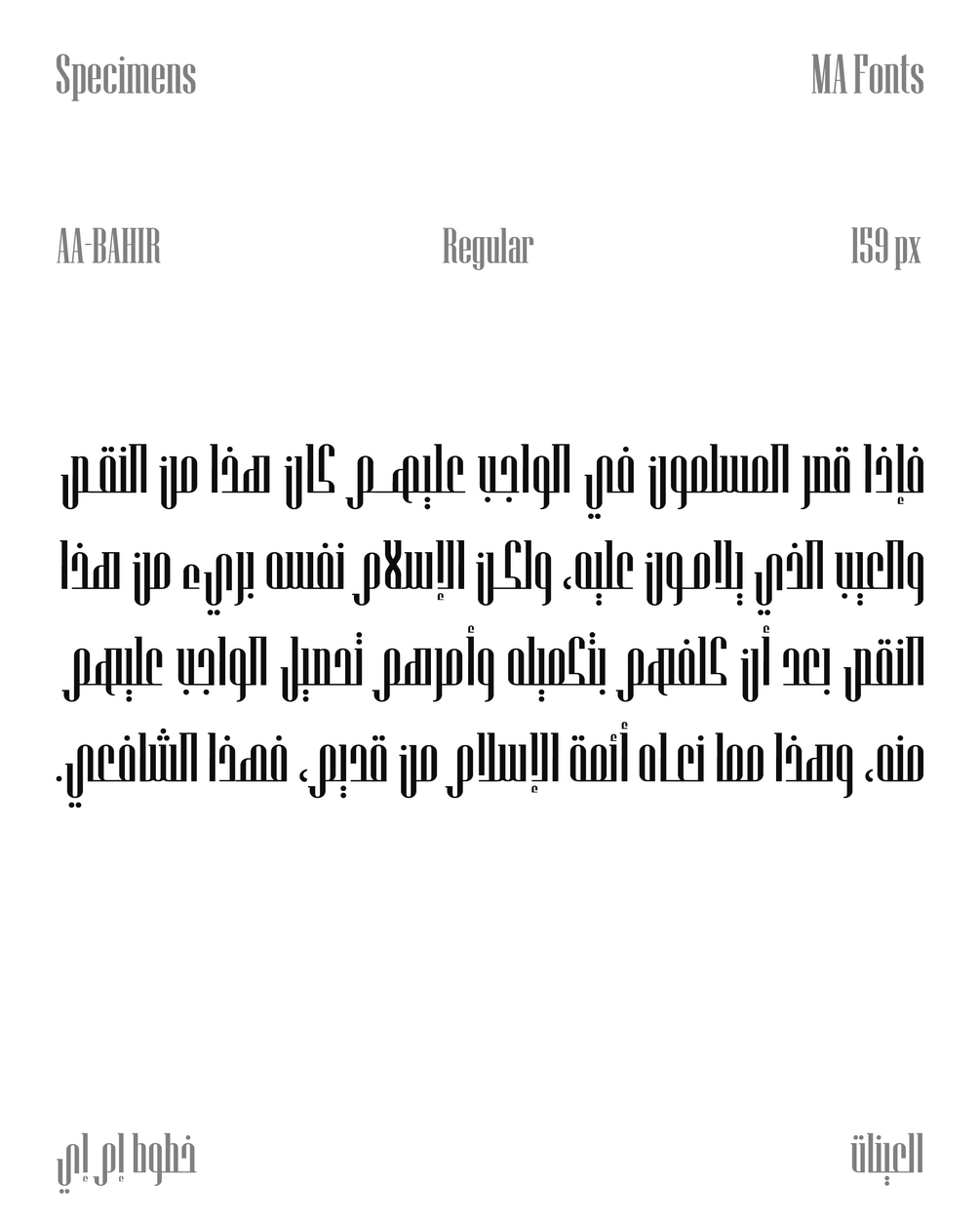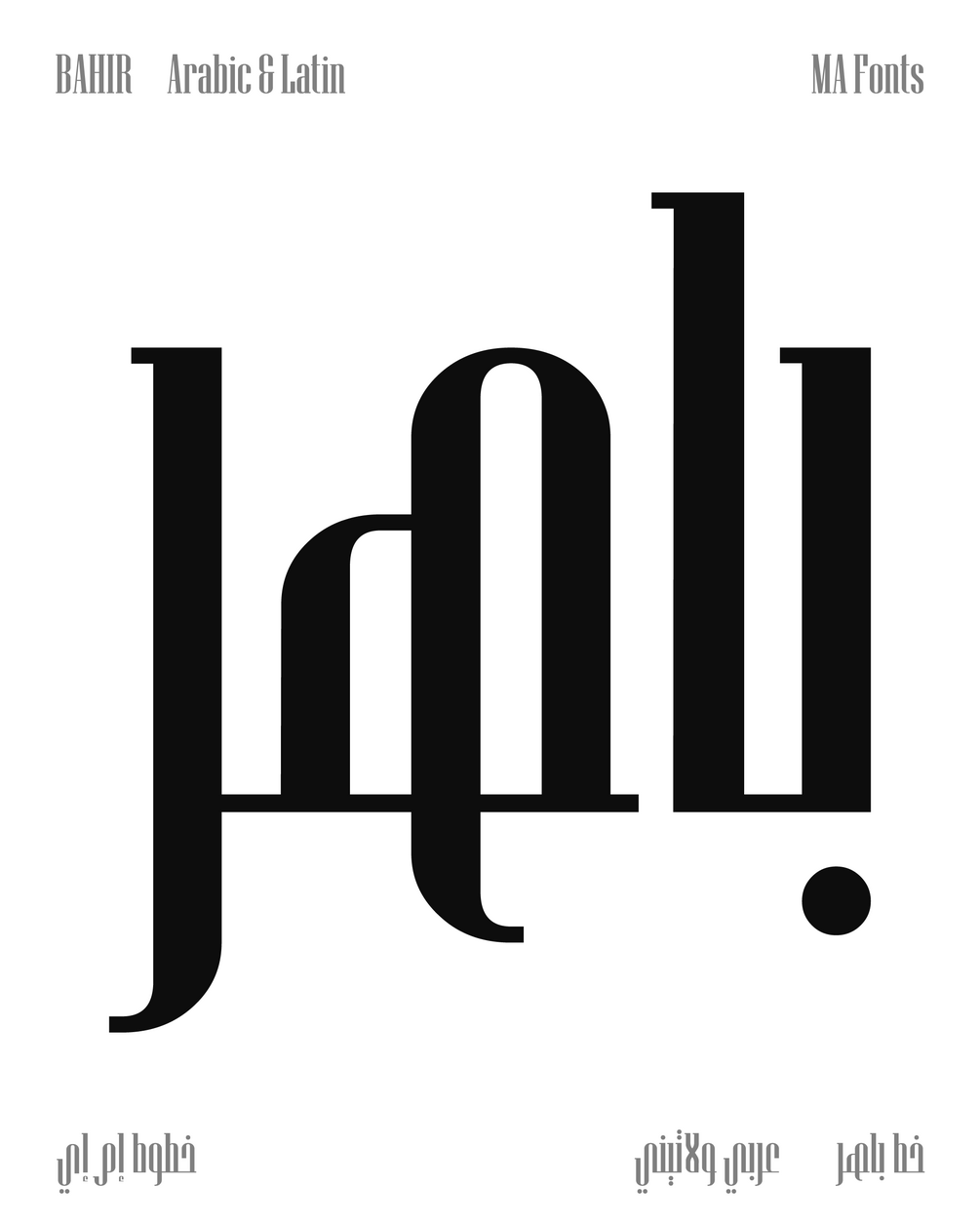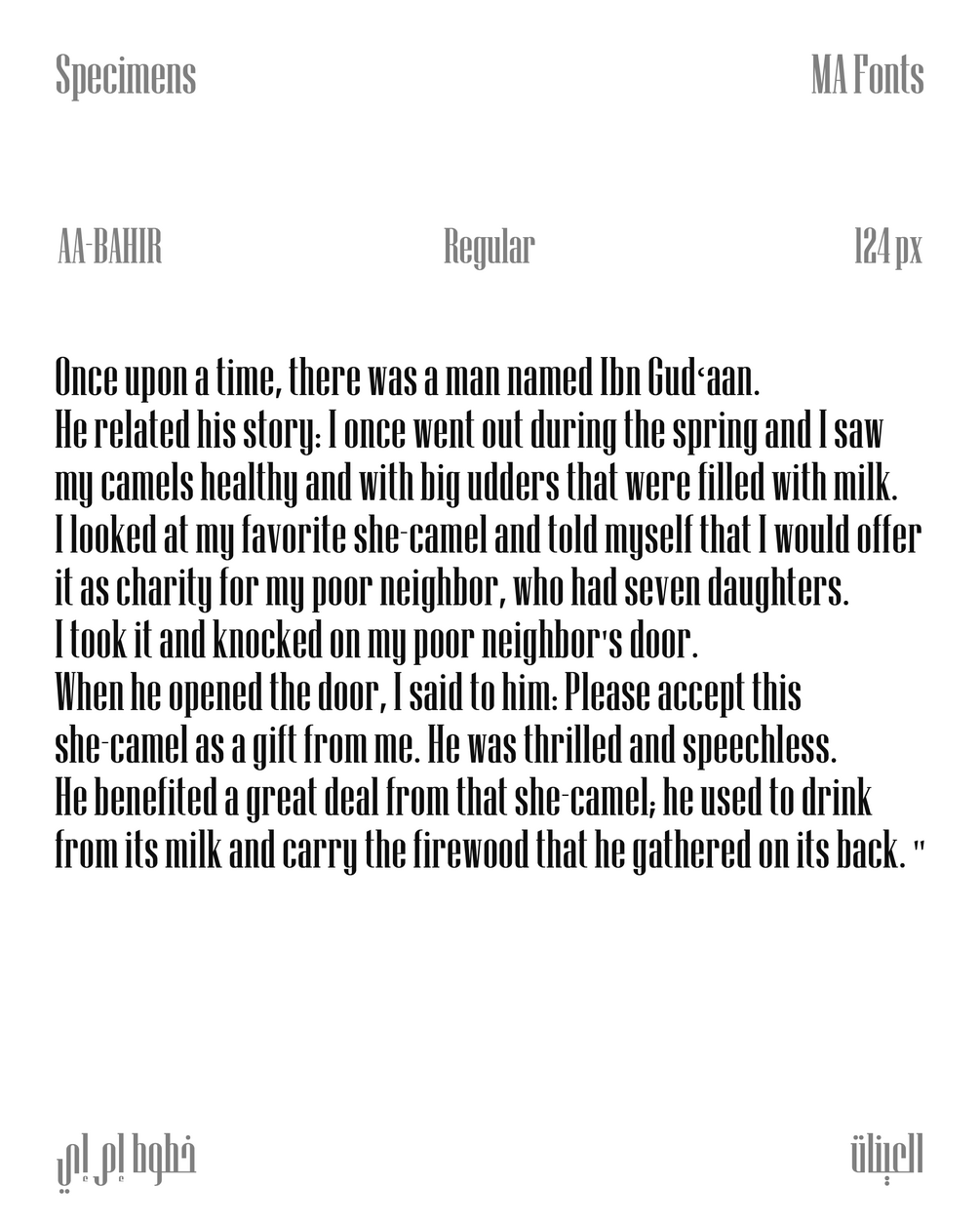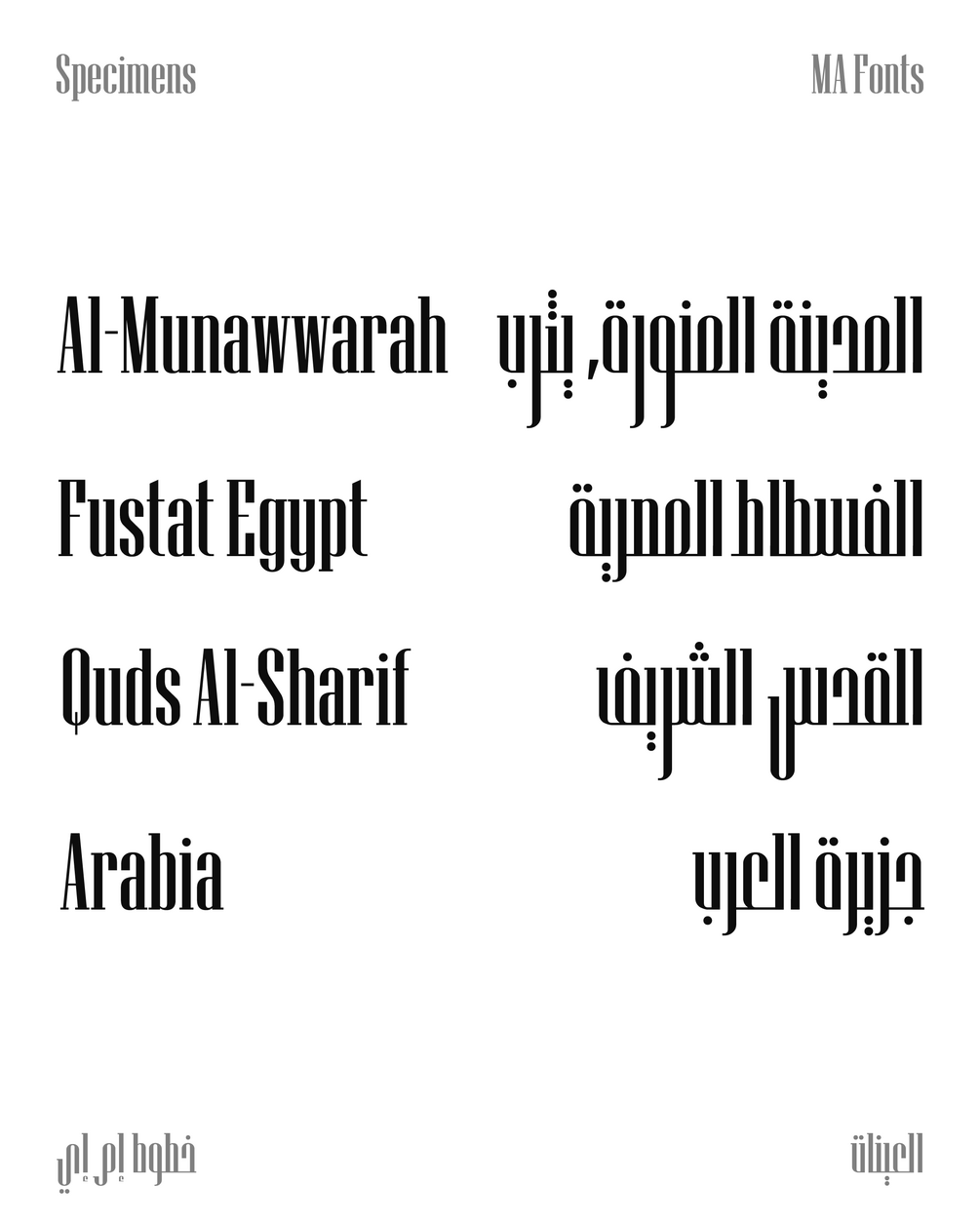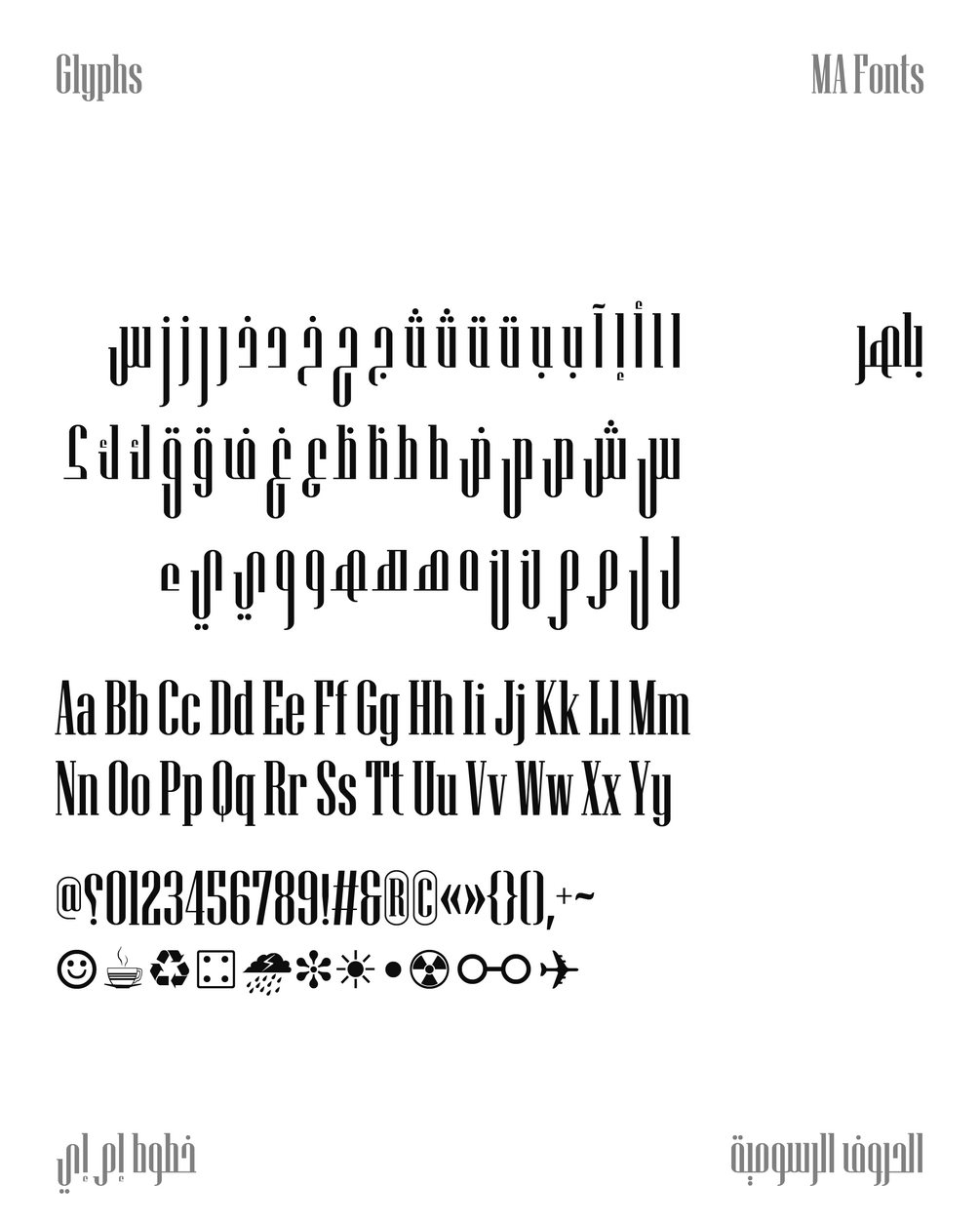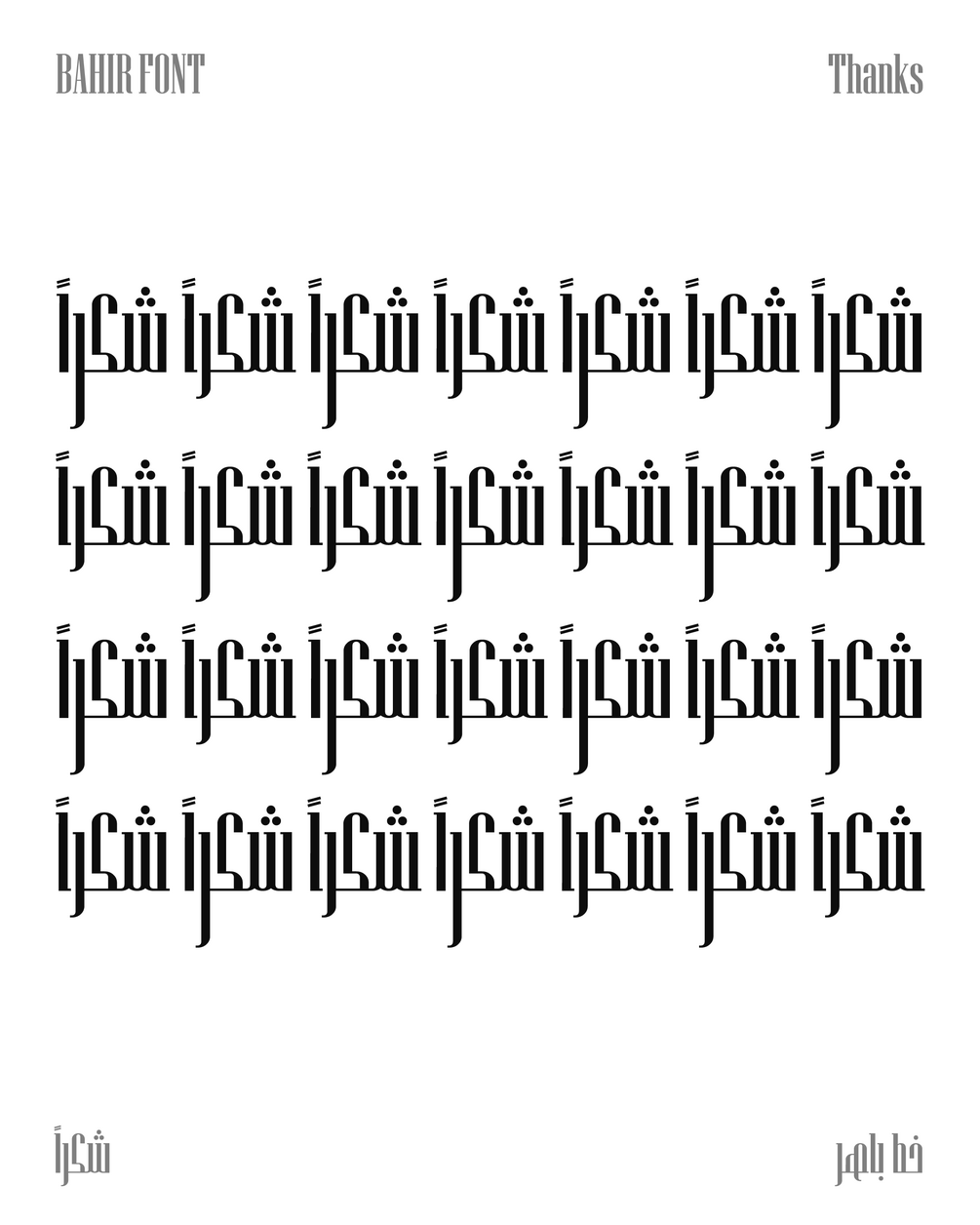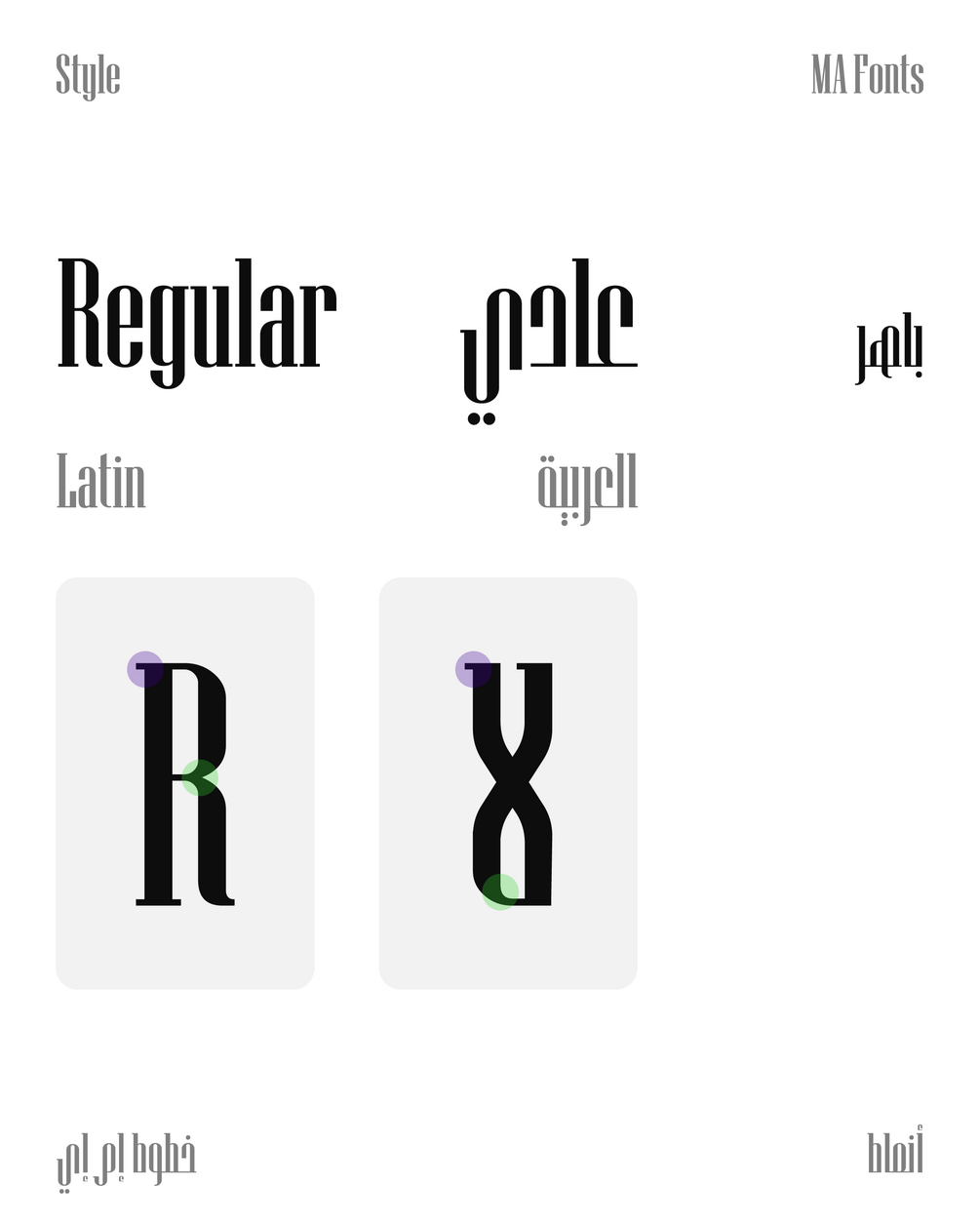
BAHIR / Classy / Arabic & Latin
BAHIR Font is an elegant typeface that seamlessly combines Arabic and Latin types.
It features a variety of letterforms within a single Regular weight, drawing inspiration from Sans Serif letterforms. The typeface showcases contemporary and updated letter designs, incorporating elements from modern Kufic Arabic.
With a professional and distinctive touch, BAHIR exudes sophistication and clarity.